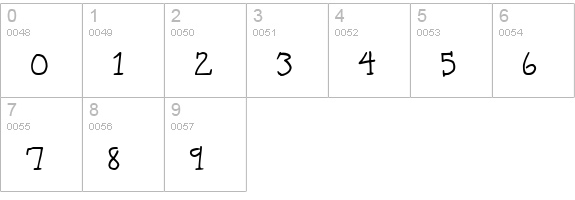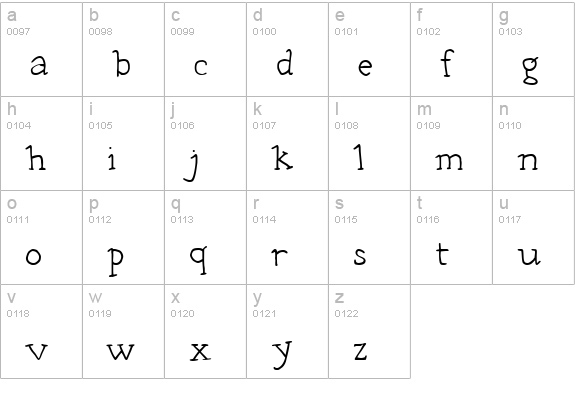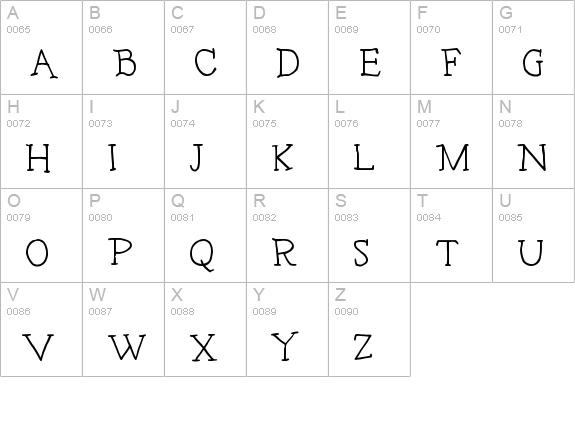
CK Typeset Font Details
Introducing CK Typeset font, a versatile and modern typeface designed to elevate your designs to the next level. With its clean lines and contemporary aesthetic, CK Typeset is perfect for a wide range of projects, from branding to editorial design. This elegant font exudes sophistication and professionalism, making it ideal for creating impactful visuals that leave a lasting impression. What's even better is that CK Typeset is available for free download at FontsMarket.com. Yes, you read that right - this premium font can be yours at no cost, allowing you to access high-quality design resources without breaking the bank. So why wait? Enhance your projects with CK Typeset today and watch your designs come to life with style and flair.